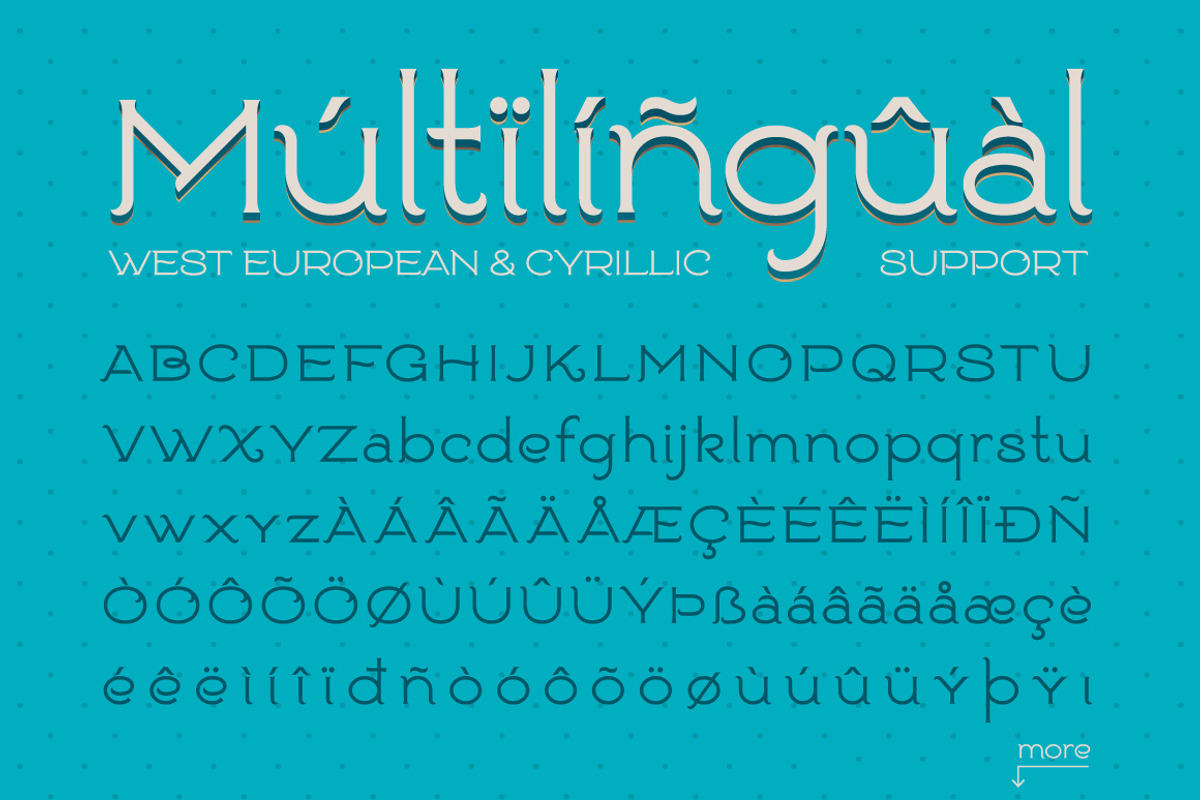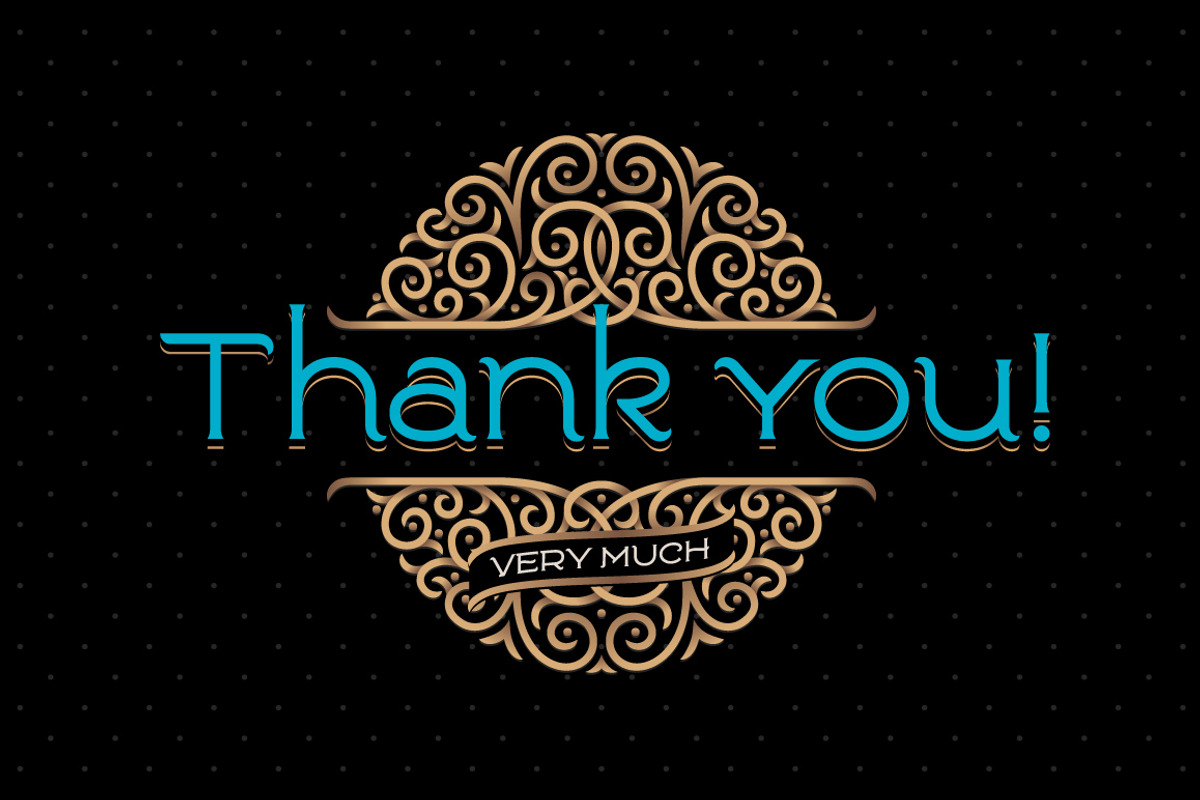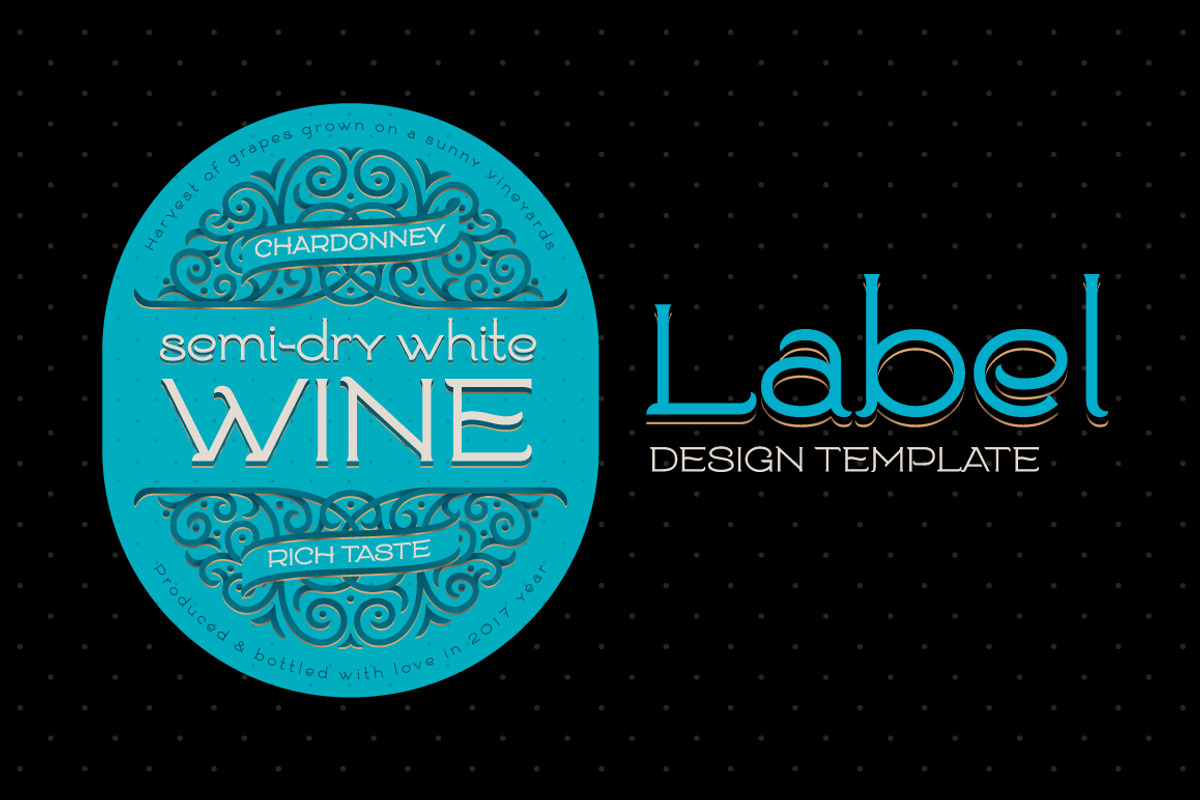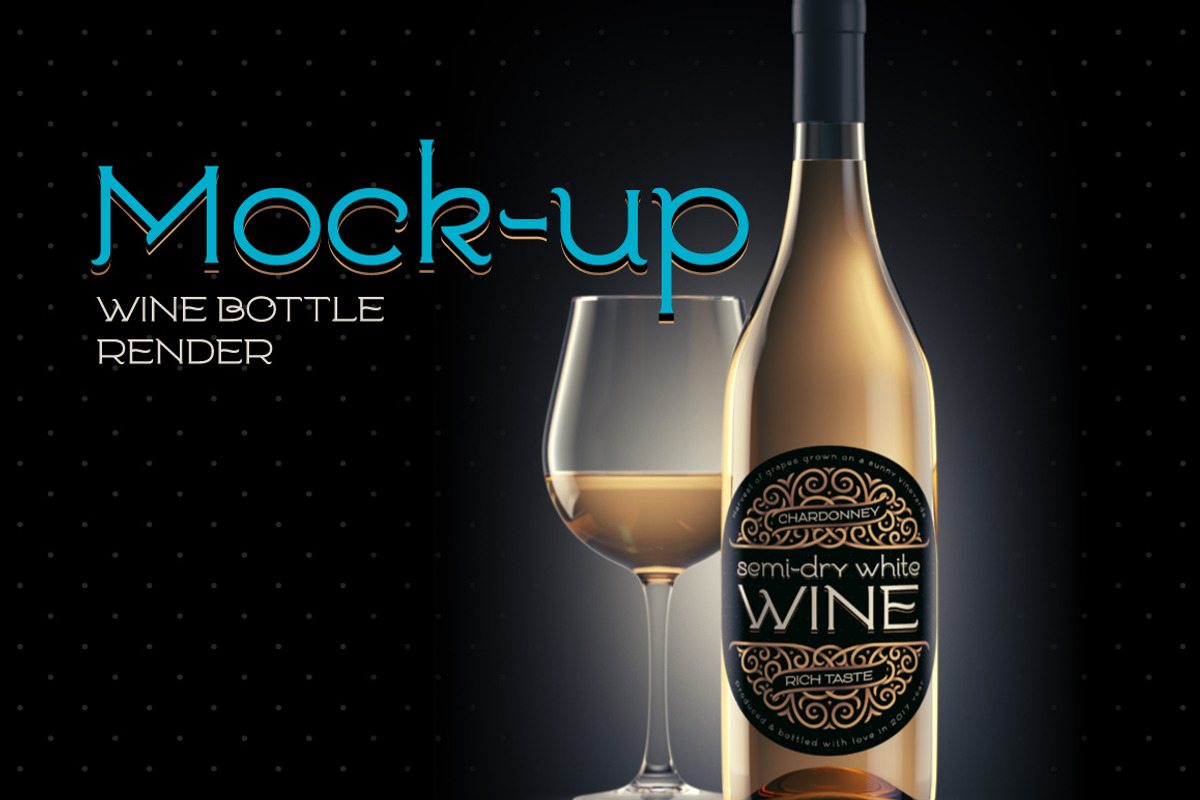
Goodwine Font, Label, Mockup
Goodwine Font, Label, Mockup by Gleb Guralnyk is a font selected for branding, posters, packaging, typography.
- Simple and elegant font named "Goodwine" includes lots of characters with many languages support (west european, cyrillic, etc...
- all characters you can see on 4th screenshot).
Why Goodwine Font, Label, Mockup is worth a look
Goodwine Font, Label, Mockup by Gleb Guralnyk fits naturally into Branding, posters, packaging, typography.